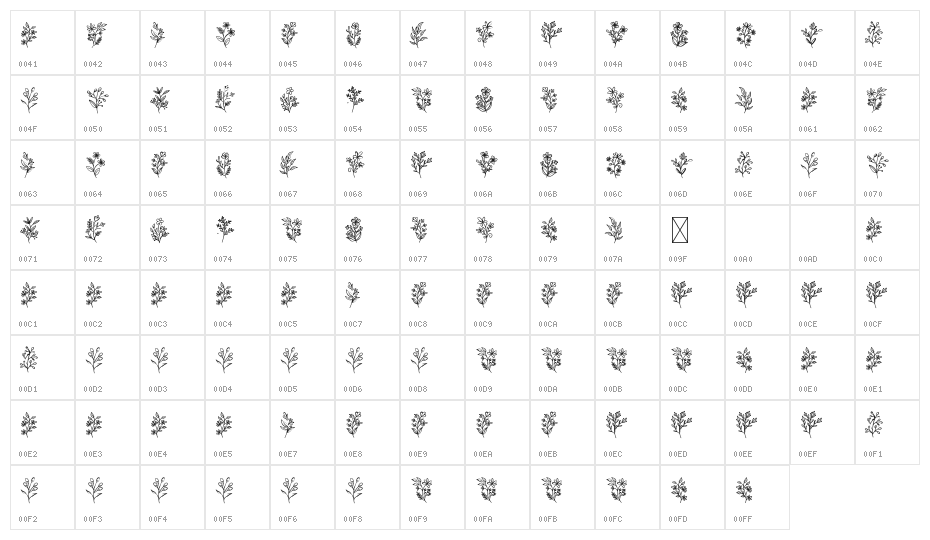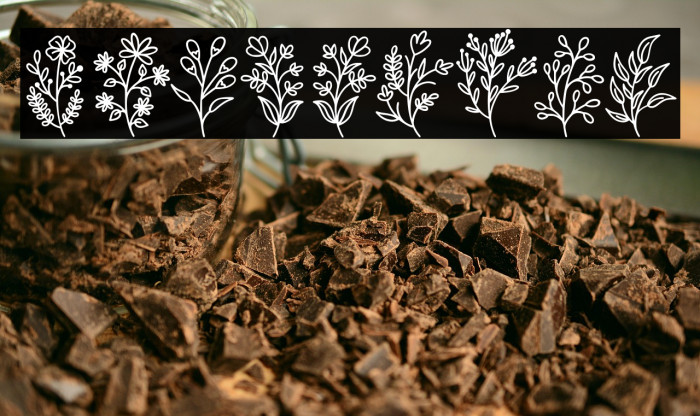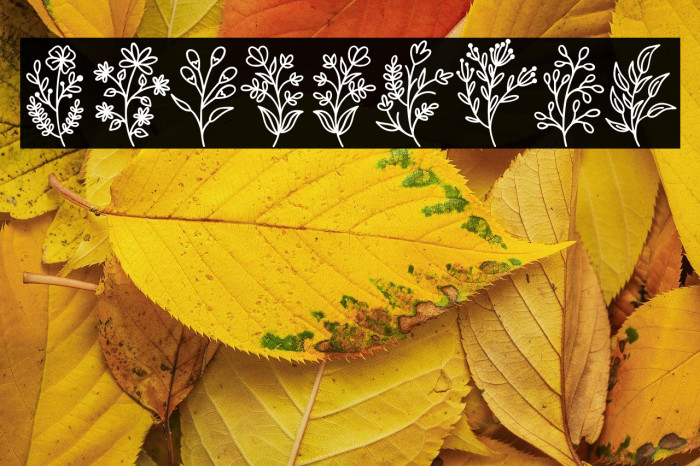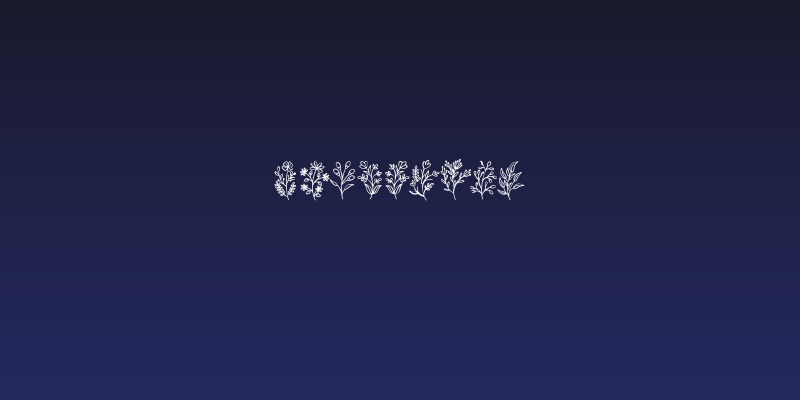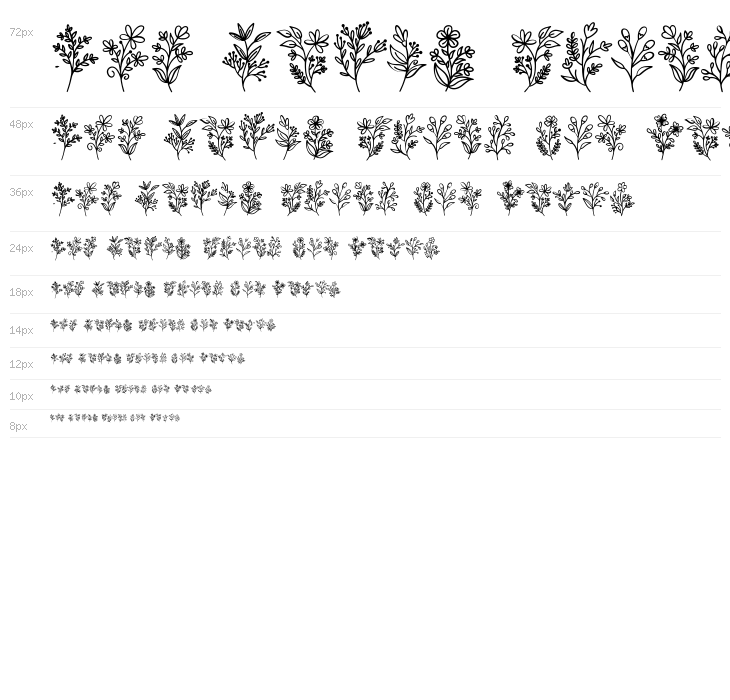
Flowering Font
Flowering Description
A decorative set of hand-drawn floral illustrations featuring various flower and leaf arrangements in a consistent, whimsical line-art style. Each motif is unique, with playful curves and organic shapes, evoking a natural, artistic feel.
| Overall Style | Decorative, Hand-drawn, Whimsical |
| Use Case | Decorative elements, Borders, Patterns, Branding |
| Proposed Projects | Stationery, wedding invitations, greeting cards, packaging, branding, digital scrapbooking, textile patterns. |